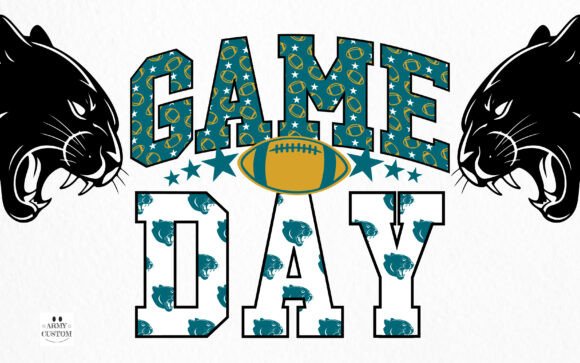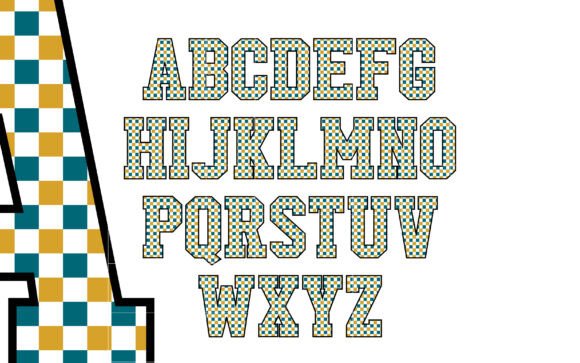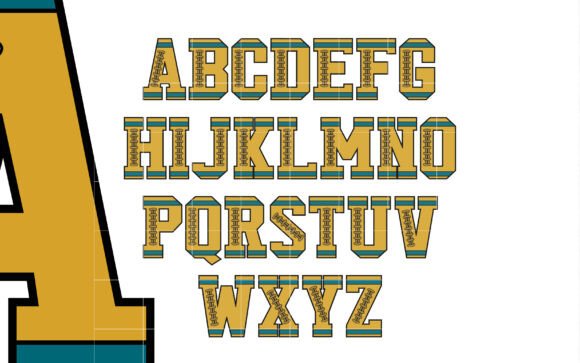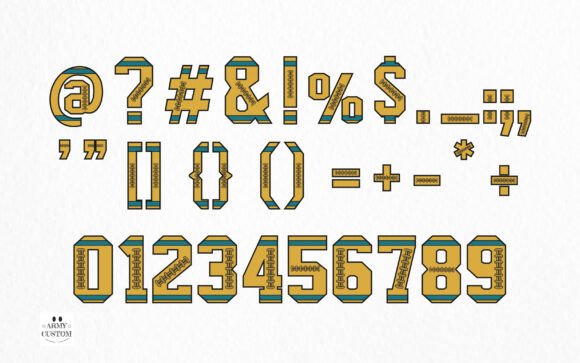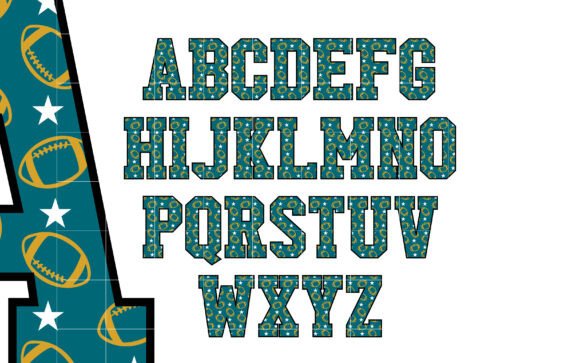
Unleash the Power of American Football with the Panther Font Family
Are you ready to dive into the exhilarating world of gridiron and elevate your design game? Look no further than the American Football Panther color font family. This innovative font family combines the thrill of American football with stunning design elements, making it the perfect choice for designers and crafters seeking to convey strength, agility, and unyielding spirit.
A Font Family like No Other
The American Football Panther font family is not just a single font, but a collection of five distinct styles, each with its own unique athletic underpinnings. The five styles include:
- Football Seam: A bold and dynamic font with a football-inspired design.
- Footballs & Stars: A font that combines footballs with starry accents, perfect for creating a celebratory feel.
- Panther Icons: A font that incorporates panther icons, symbolizing strength and agility.
- Stars: A font that shines bright with starry designs, ideal for creating a sense of excitement.
- Checkerboard: A font with a classic checkerboard pattern, reminiscent of sports jerseys.
These five styles work together seamlessly to form a cohesive sports-inspired display font that exudes team spirit and a competitive vibe. Whether you’re designing a logo, poster, or social media graphic, this font family has got you covered.
Design Meets Sport
The American Football Panther font family is the perfect blend of design and sport. Each letter is carefully crafted to capture the essence of American football, making it an ideal choice for designers and crafters who want to create engaging and dynamic content. The font’s athletic underpinnings and bold designs make it perfect for:
- Sports branding and marketing materials.
- Team logos and jerseys.
- Event posters and flyers.
- Social media graphics and posts.
Why Choose the American Football Panther Font Family?
So, why should you choose the American Football Panther font family for your next design project? Here are just a few reasons:
- Unique and Creative: This font family is unlike any other, offering a fresh and innovative approach to typography.
- Athletic and Dynamic: The font’s athletic underpinnings and bold designs make it perfect for sports-related projects.
- Versatile: With five distinct styles, you can choose the perfect font to match your design needs.
- High-Quality: The font family is designed with high-quality and precision, ensuring crisp and clear designs.
Get Ready to Elevate Your Design Game
Are you ready to take your design game to the next level? With the American Football Panther font family, you can create stunning and dynamic designs that capture the essence of American football. Whether you’re a designer, crafter, or sports enthusiast, this font family is the perfect choice for anyone seeking to convey strength, agility, and unyielding spirit.
So, what are you waiting for? Dive into the world of expressive typography with the American Football Panther font family and experience the thrill of gridiron design.